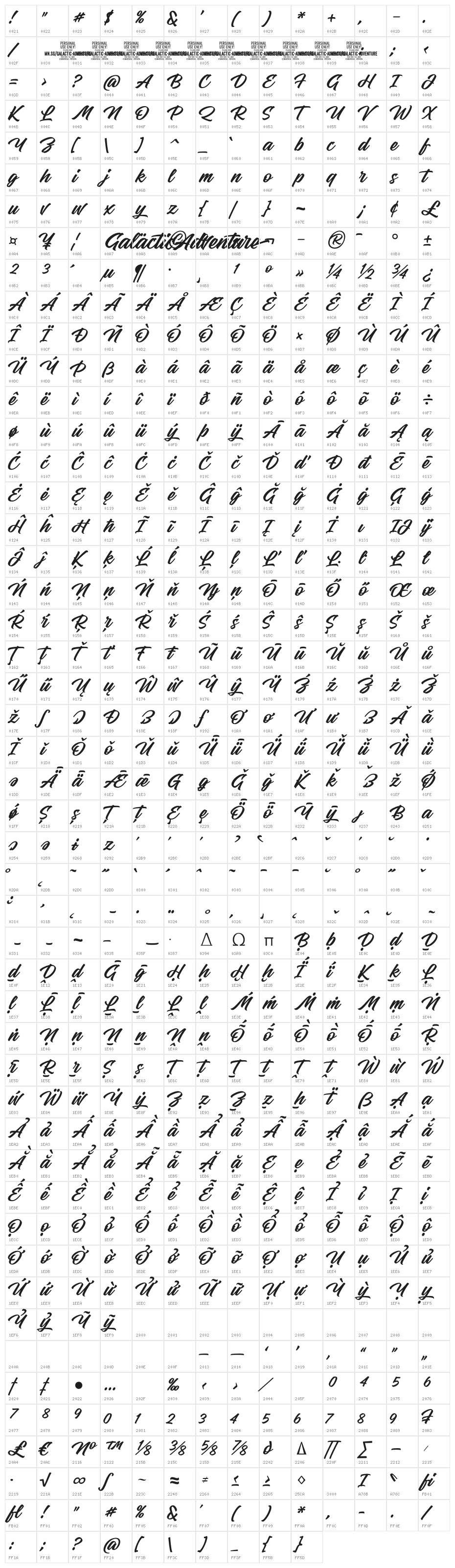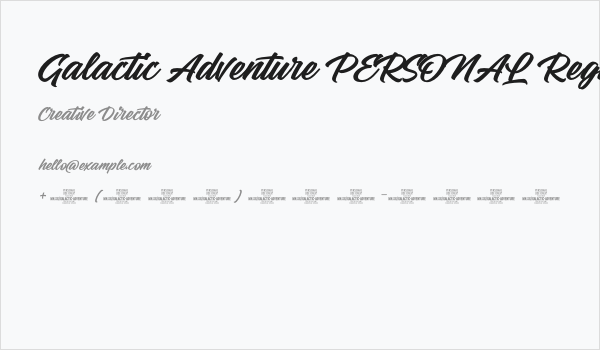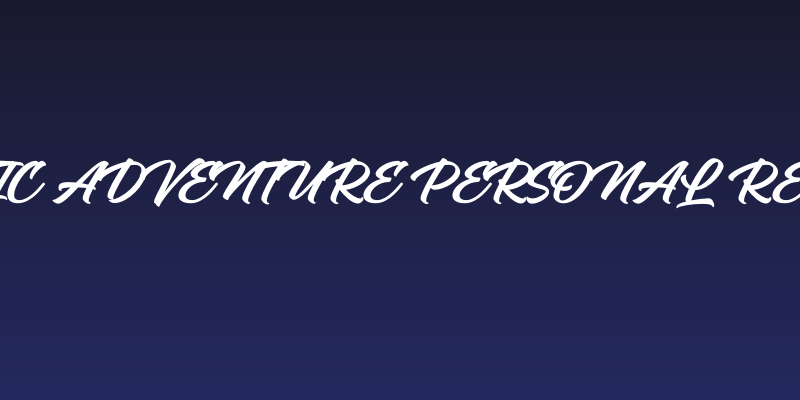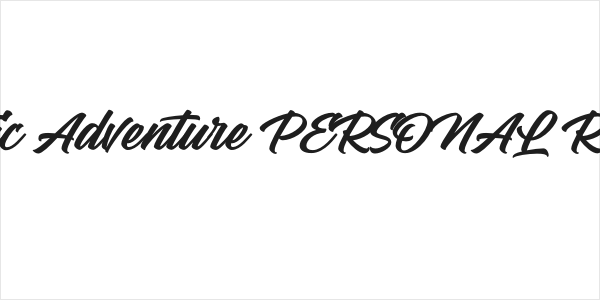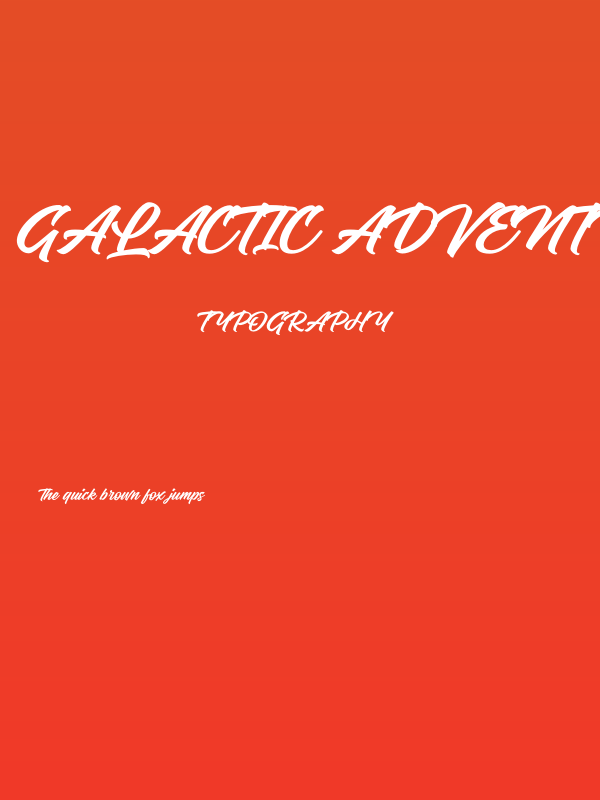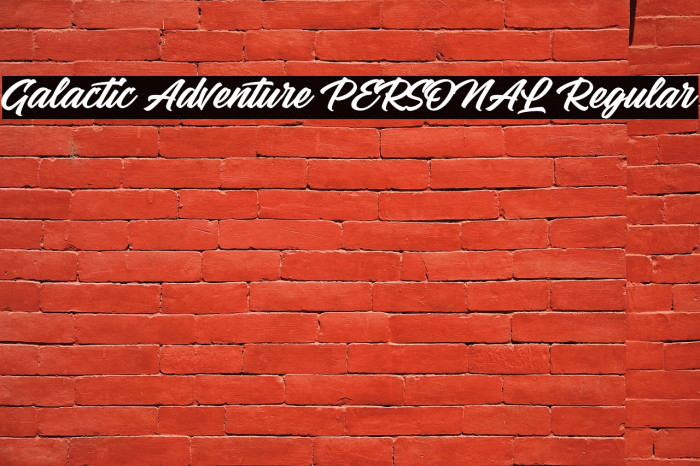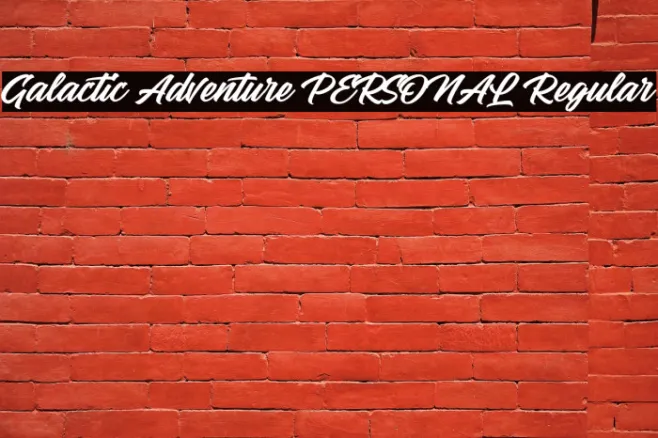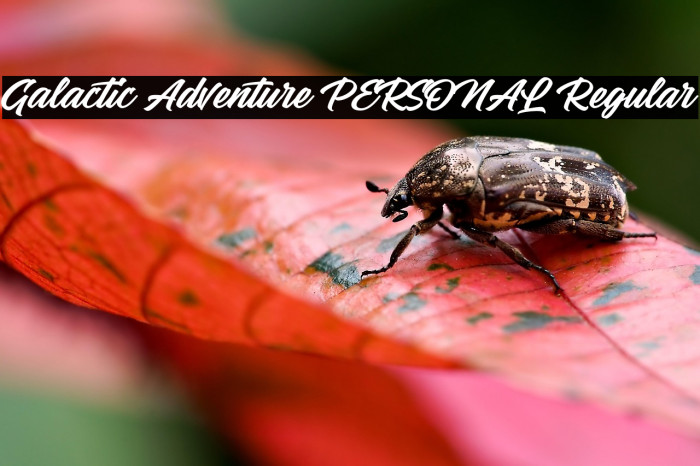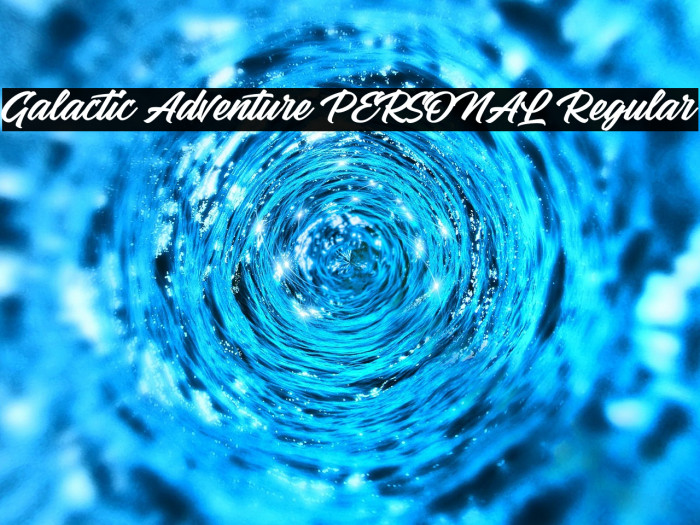
Galactic Adventure PERSONAL Regular Font
Galactic Adventure PERSONAL Regular Description
This font features a dynamic and flowing script style, characterized by its bold and expressive strokes. The uppercase letters exhibit a sense of movement and flair, with elegant curves and loops that give it a handwritten feel. The lowercase letters maintain this fluidity, ensuring a cohesive look across all text. The numbers and special characters are designed with the same attention to detail, providing a consistent and stylish appearance. This font is perfect for projects that require a personal touch, combining readability with artistic expression.